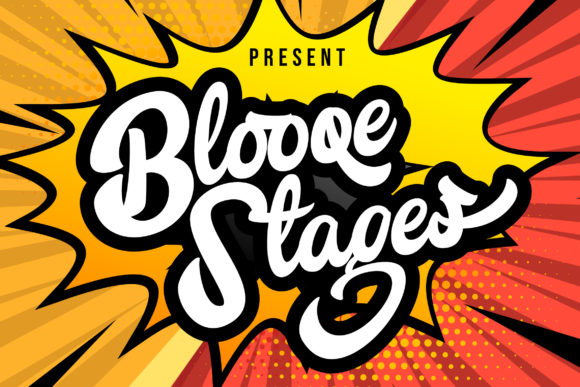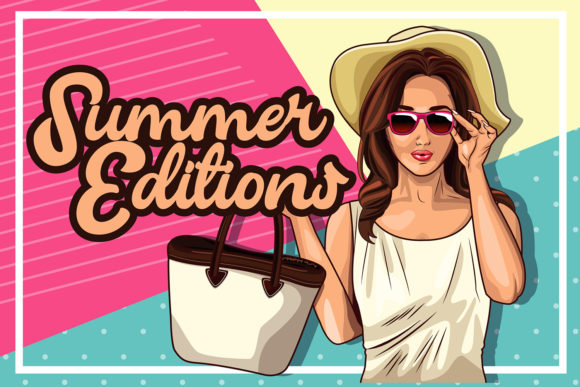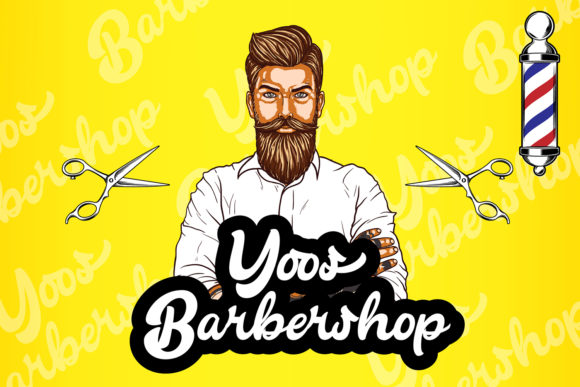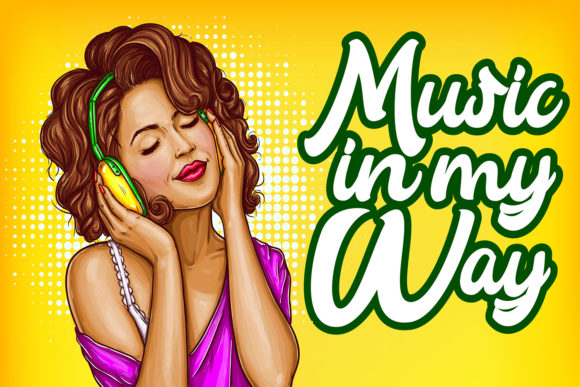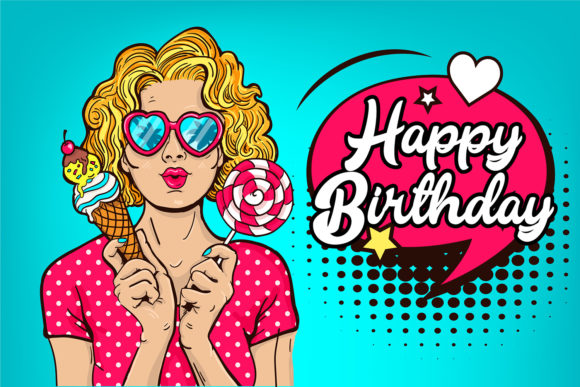
Blooqe Stages Font
About Blooqe Stages Font
Blooqe Stages is a bold calligraphy style font that makes your text stand out. Get motivated by its unique character!